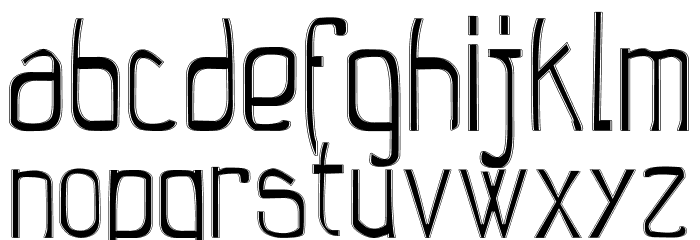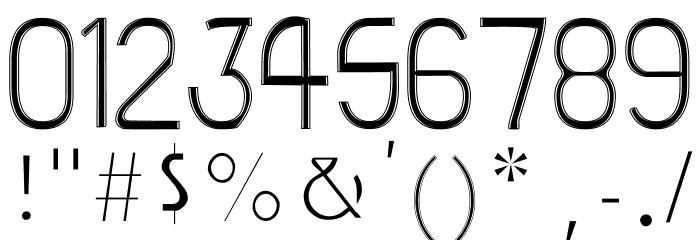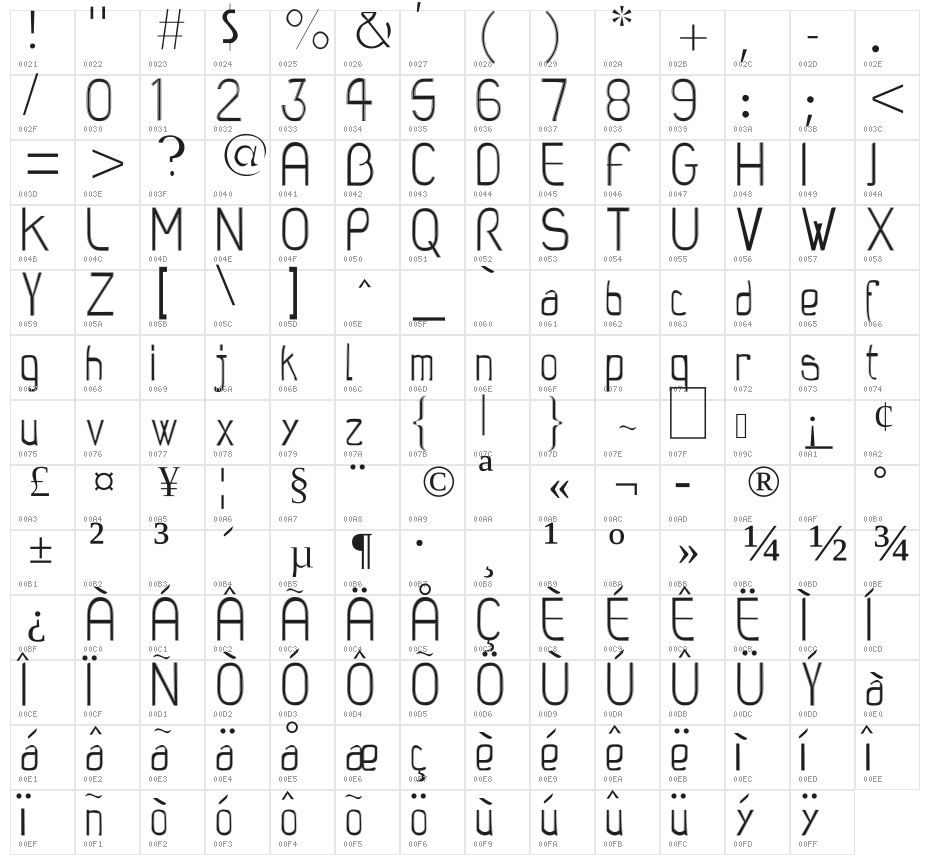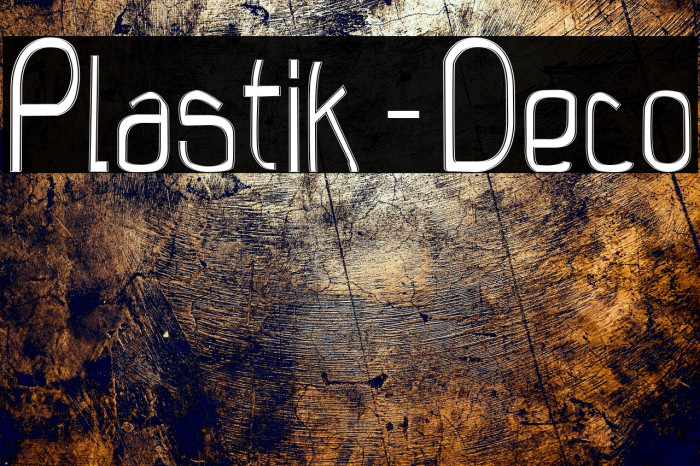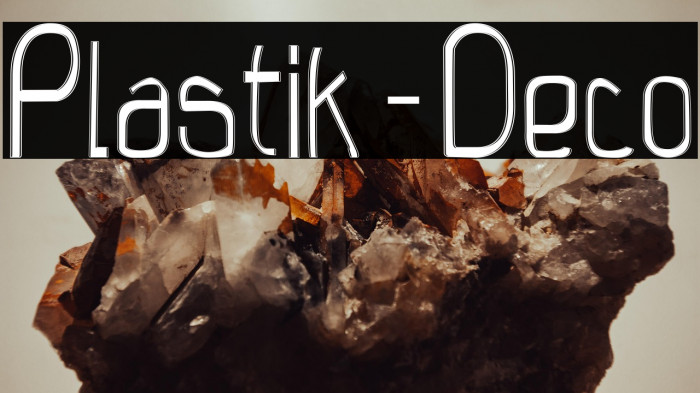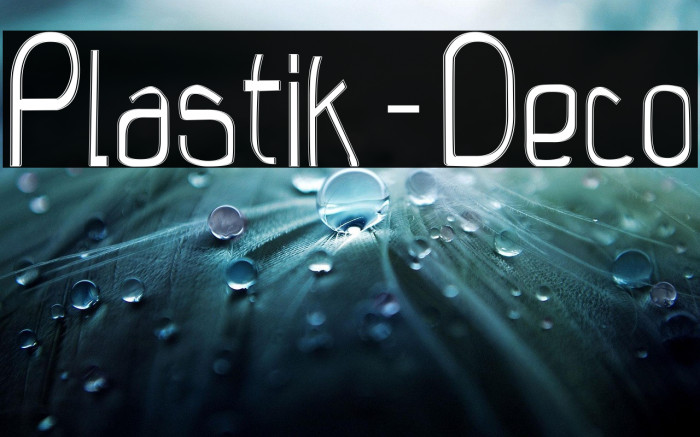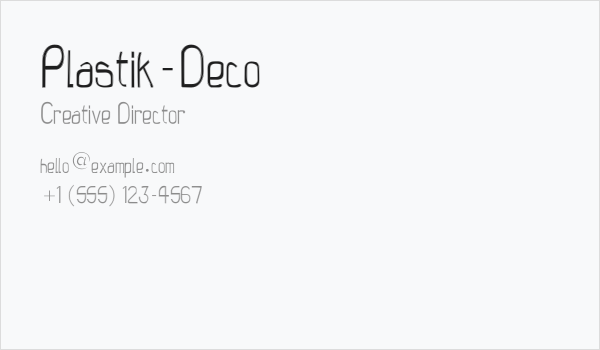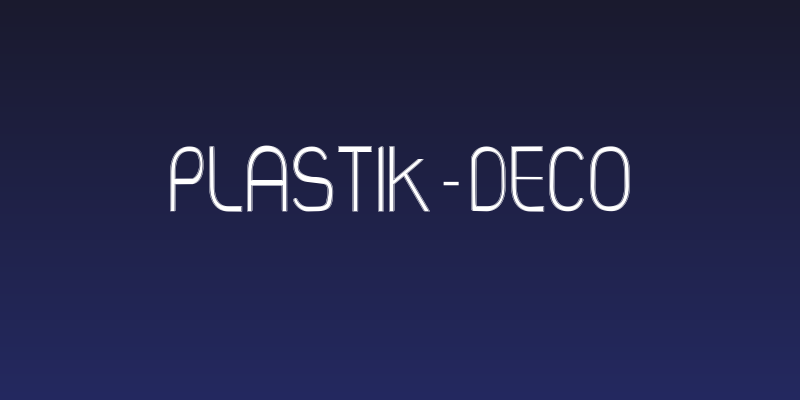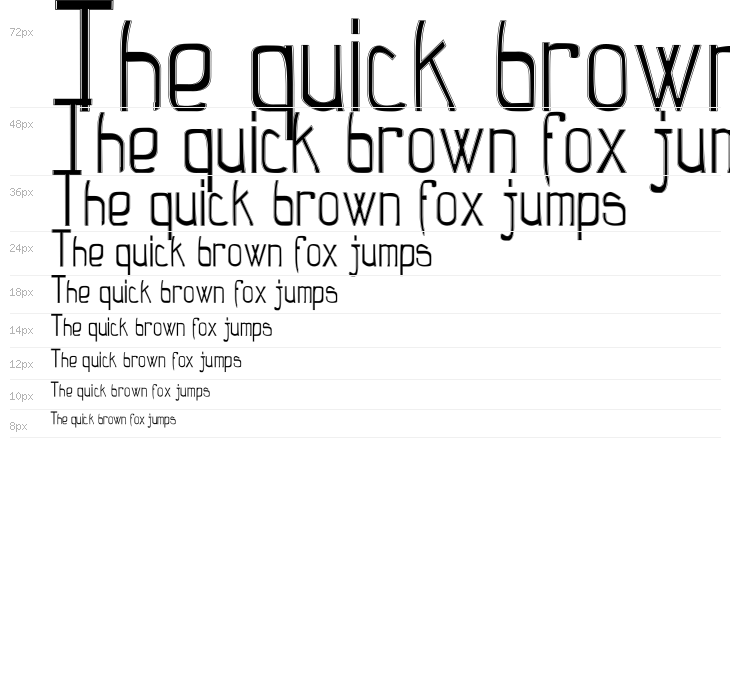
Plastik-Deco Font
This font features a sleek, modern design with a distinct Art Deco influence. The characters are elongated and slightly condensed, giving a sophisticated and stylish appearance. The uppercase letters have a geometric quality, while the lowercase letters maintain a consistent height, enhancing readability. The numerals are uniquely styled, with a futuristic touch that complements the overall aesthetic. Special characters are well-integrated, maintaining the font's cohesive look. The thin lines and sharp angles create a sense of elegance and precision, making it suitable for a variety of design projects.
A modern, Art Deco-inspired font with sleek, elongated characters.
- Proposed Projects: Ideal for branding, posters, invitations, and editorial design where a touch of elegance is desired.